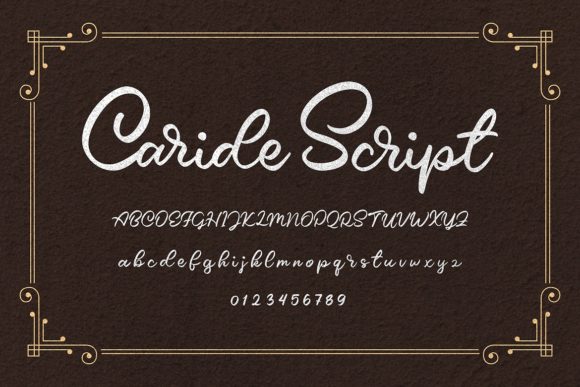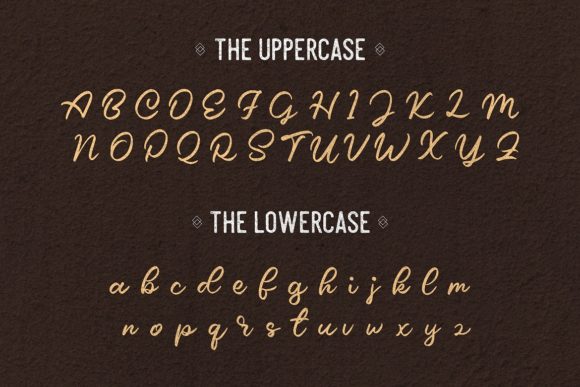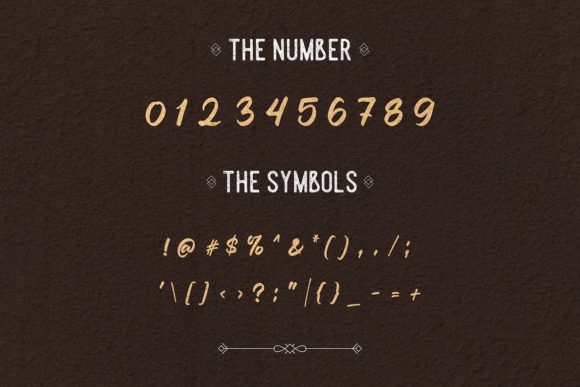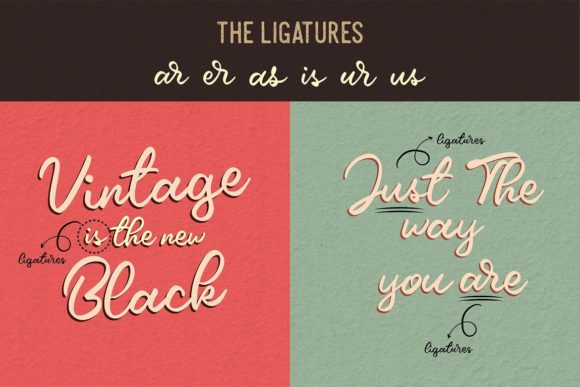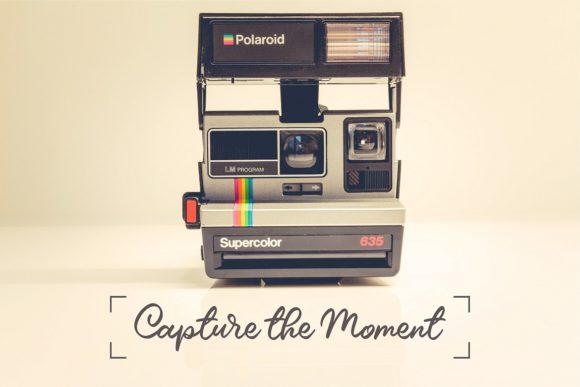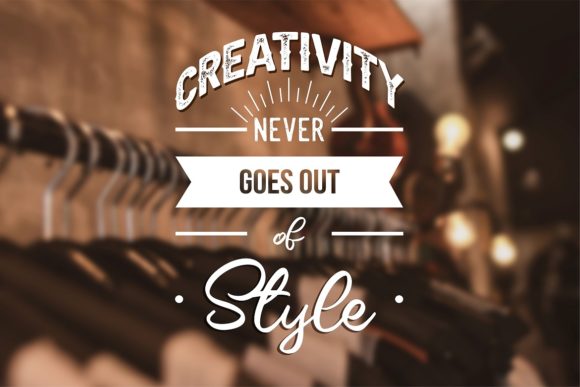
Introduction to Caride Font
Have you ever stumbled upon the perfect font while working on a creative project, and suddenly, your entire design comes to life? For designers, this moment is like hitting the jackpot. It’s when all the elements fall into place, and the result is nothing short of magic. One such font that has been making waves in the design community is the Caride Font.
| 📌 Product Name | Caride Font |
| 👤 Author | Graphue |
This elegant, handwritten font is a breath of fresh air for designers looking to add a touch of sophistication to their work. With its unique, timeless style, Caride Font is perfect for creating stunning designs that demand attention. Whether you’re working on a branding project or a digital art piece, this high-quality font is sure to elevate your design to the next level.
Key Features of Caride Font
- High-quality design: Caride Font is a well-crafted font suitable for creative projects and design resources.
- Transparent background: This font features a transparent background, making it ideal for use on various backgrounds.
- Resolution: Caride Font is designed at a high resolution of 300 DPI, ensuring crisp and clear text display.
- Unique characteristics: This font features a unique, hand-drawn style that sets it apart from other fonts in its class.
- Size: Caride Font comes in a range of sizes, from 12 points to 72 points, making it suitable for a variety of design applications.
Honest Review: Caride Font
I recently had the chance to work with the Caride Font and I must say it’s been a fantastic addition to my design resources. The high quality of this font makes it perfect for any creative project I’m working on.
One of the standout features of the Caride Font is its transparent background, which makes it incredibly versatile. I’ve used it for both print and digital designs, and it’s always looked great.
Here are some of the things that work well with the Caride Font:
- High-quality design: The font is incredibly clear and easy to read.
- Great for creative projects: The Caride Font is perfect for any design project that requires a touch of elegance and sophistication.
One limitation of the Caride Font is that it may not be suitable for projects that require a bold, edgy look. The font is quite elegant and refined, so it may not be the best choice for projects that need a more dramatic feel.
Overall, I’m very impressed with the Caride Font and I would definitely recommend it to anyone looking for a high-quality design resource.
I’ve encountered no major issues with the font, and it has been a pleasure to work with.
Tips for Getting the Most Out of Caride Font
To maximize the potential of Caride Font, experiment with different font sizes, colors, and styles. Combine the font with other design elements, such as images or graphics, to create a visually striking design. Consider using Caride Font for creative projects, such as typography-based designs or graphics.
Common Use Cases for Caride Font
Caride Font is ideal for various design applications, including creative projects, presentations, and documents. Use the font to create engaging titles, headings, or body text that adds a touch of sophistication to your design.